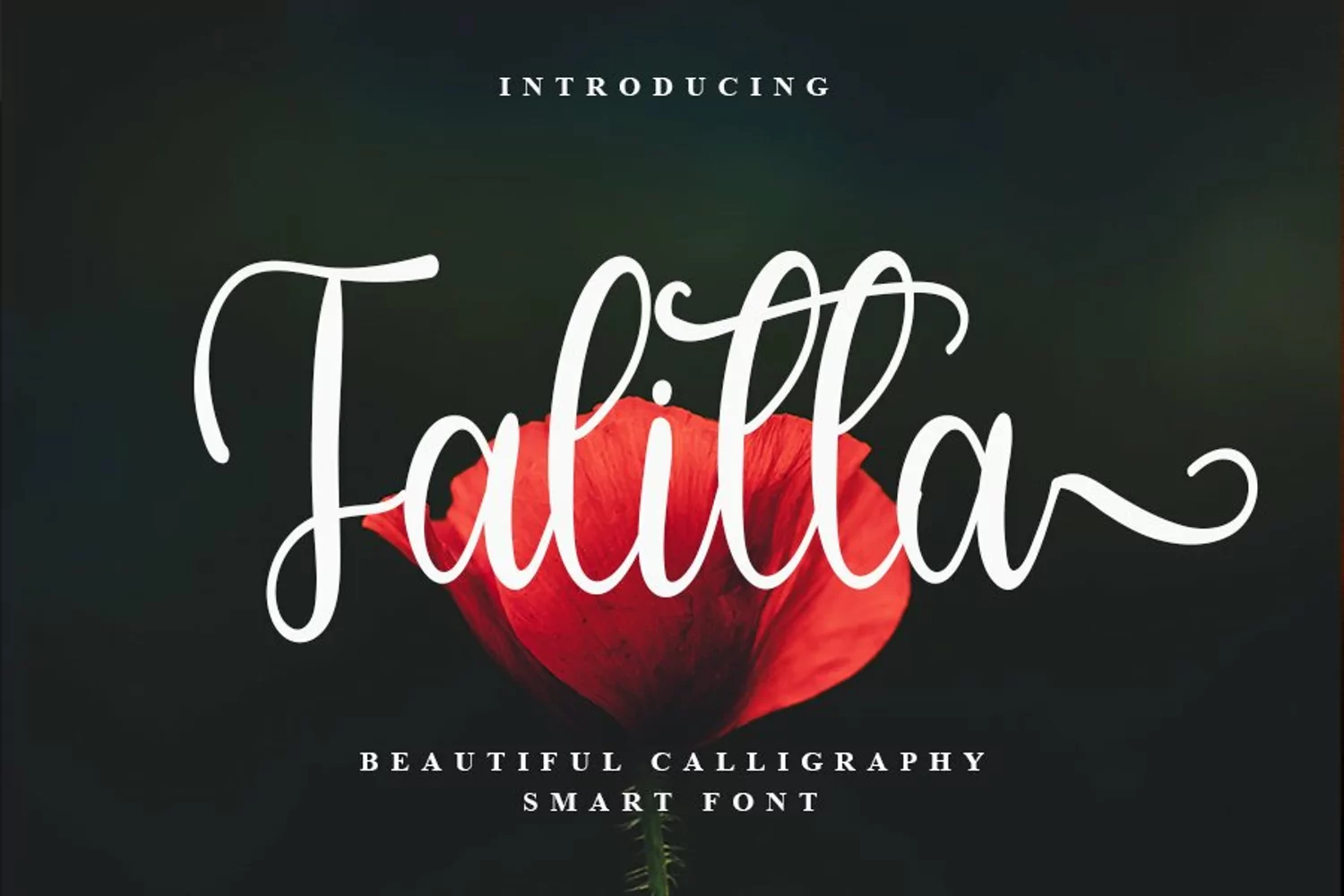
Talitta
Talitta a great Calligraphy font. Can be used for various purposes such as logos, wedding invitations, headings, t-shirts, youtube banners, layers, banners, mockups and many more. This font is PUA encoded which means you can access all glyphs and swashes with ease!
• Uppercase and Lowercase
• Alternate and Glyphs.